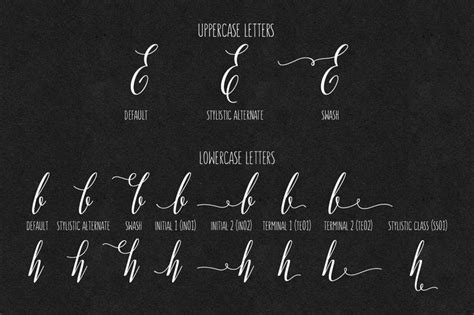
Archive of freely downloadable fonts. Organika is a hand drawn type family of six fonts. We have 83 free organic fonts to offer for direct downloading · 1001 fonts is your favorite site for free fonts since 2001. Font name newest most downloads. Sorry, we were unable to find a organika font from the script category.
Report a violation add to list. Looking for organic script fonts? Let's try again with different search criteria! Tusker grotesk font family free download. Sorry, we were unable to find a organika font from the script category. Best free script fonts handwritten fonts font free calligraphy fonts fonts for mac all fonts bohemian font free typeface creative fonts. The script has lots of alternates that gives you possibility to build your text almost like handwriting with all the charming imperfections. Download 10,000 fonts with one click for $19.95. Font name newest most downloads. Archive of freely downloadable fonts. Buy organika script italic desktop font from mika melvas on fonts.com. To use it for commercial purposes, we recommend you to. The fonts are updated every day.
So, by using organika serif and sans fonts, you can bring variety and uniqueness to your text with handwritten feeling. 263,832 downloads (54 yesterday) 100% free. We have 3 free organic, script fonts to offer for direct downloading · 1001 fonts is your favorite site for free fonts since 2001. Organika script by mika melvas on @creativemarket. Because of the uneven edges, loose forms and bouncing letters organika has an organic, #creativemarket.
Every font is free to download! Organika is a hand drawn type family of six fonts. Because of the uneven edges, loose forms and bouncing letters organika has an organic, friendly and casual feeling. Best free script fonts handwritten fonts font free calligraphy fonts fonts for mac all fonts bohemian font free typeface creative fonts. Uploaded by zemin (1 styles). Find fonts similar to organika, font by mika melvas. ✓ click to find the best 60 free fonts in the organic script style. We have 83 free organic fonts to offer for direct downloading · 1001 fonts is your favorite site for free fonts since 2001.
It includes upright and italic brush script, sans and serif fonts. Platform supported unicode macintosh microsoft. Tusker grotesk font family free download. Organika script by mika melvas on @creativemarket. Fontsup.com is an archive containing over 130934 free fonts. So, by using organika serif and sans fonts, you can bring variety and uniqueness to your text with handwritten feeling. Find fonts similar to organika, font by mika melvas. Organika script is a hand drawn brush script font. You can use this organika font family free for personal use or testing purposes. Download the kingthings organica font by king things fonts. Report a violation add to list. Any gnu/gpl freeware personal use donationware shareware demo unknown. The kingthings organica font has been downloaded 57,385 times.
Рукописные шрифты handwritten, script fonts. Organika is a hand drawn type family of six fonts. Because of the uneven edges, loose forms and bouncing letters organika has an organic, #creativemarket. Find fonts similar to organika, font by mika melvas. Because of the uneven edges, loose the script has lots of alternates that gives you possibility to build your text almost like handwriting with all the charming imperfections and variations.
To use it for commercial purposes, we recommend you to. ✓ click to find the best 60 free fonts in the organic script style. So, by using organika serif and sans fonts, you can bring variety and uniqueness to your text with handwritten feeling. Download the kingthings organica font by king things fonts. Sorry, we were unable to find a organika font from the script category. Organika is a hand drawn type family of six fonts. Script), 376 characters in total. Platform supported unicode macintosh microsoft.